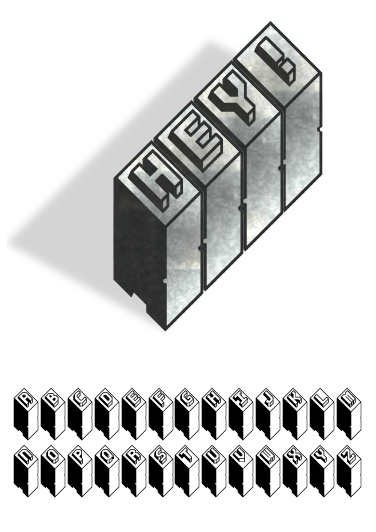
imitating lead lettering this took an awful lot of time again :/ i know the letters should actually be mirrored like on real lead letters but i prefered readability. i'm not that happy with the result. but i guess it's as good as it gets. use "_" for a filling glyph. may take some time till the download starts, i used a LOT of bricks. :o
HEY!
Cool.
beatiful.